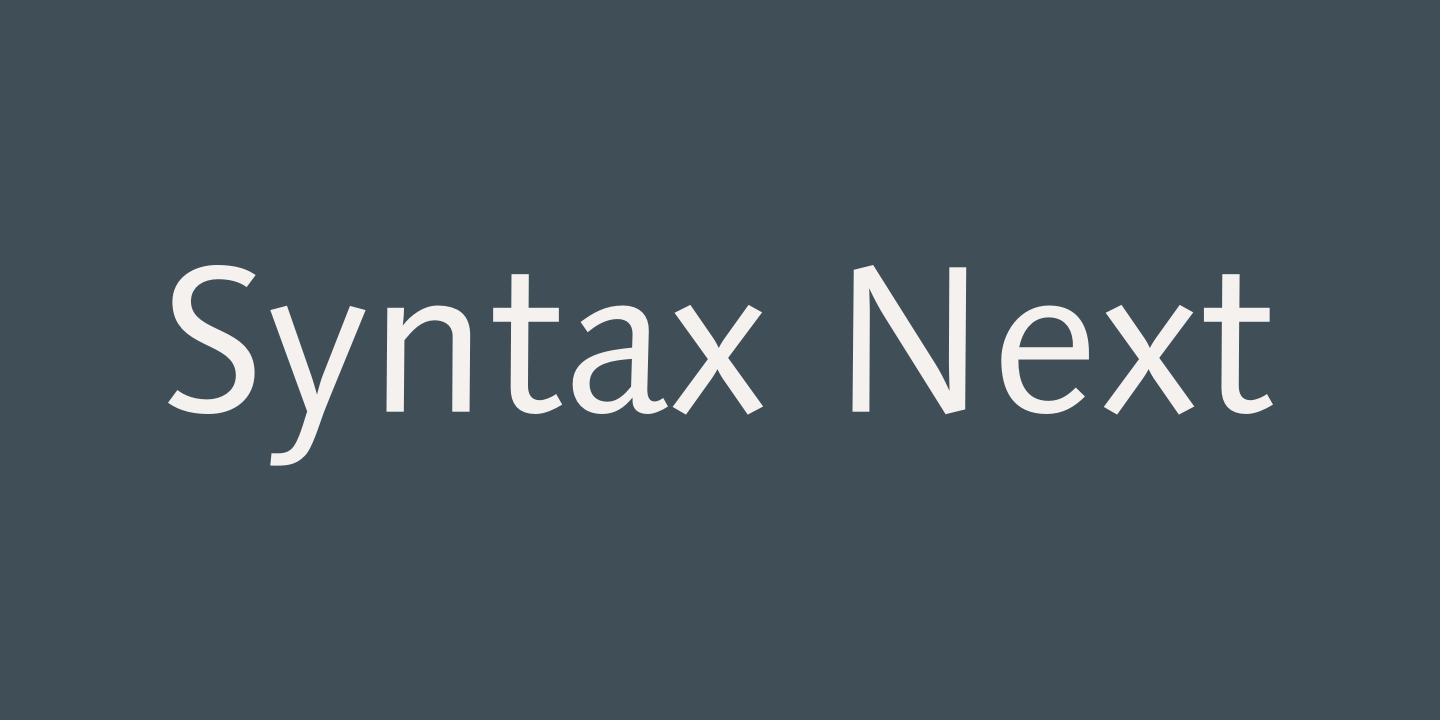
Syntax Next Font Free Download is a clean, geometric sans-serif typeface that offers versatility and modern aesthetics for a wide variety of design projects. Its balanced structure and open letterforms ensure high legibility, making it ideal for both print and digital applications including branding, editorial, user interfaces, and advertising.
Developed as a contemporary update to the classic Syntax typeface, Syntax Next combines the elegance of traditional typography with the needs of today’s designers. It includes multiple weights and styles, allowing for flexible typographic hierarchies and cohesive design systems.